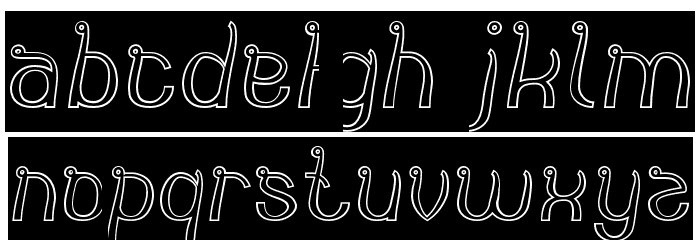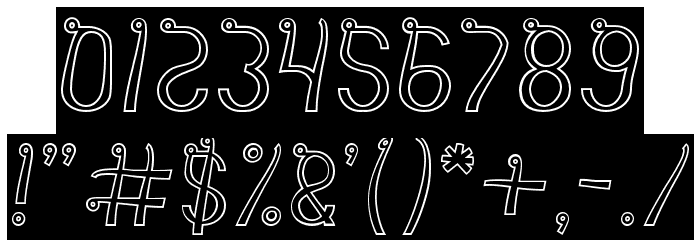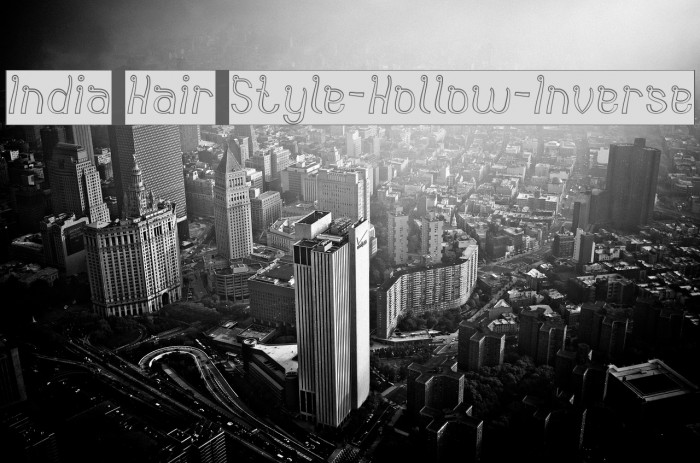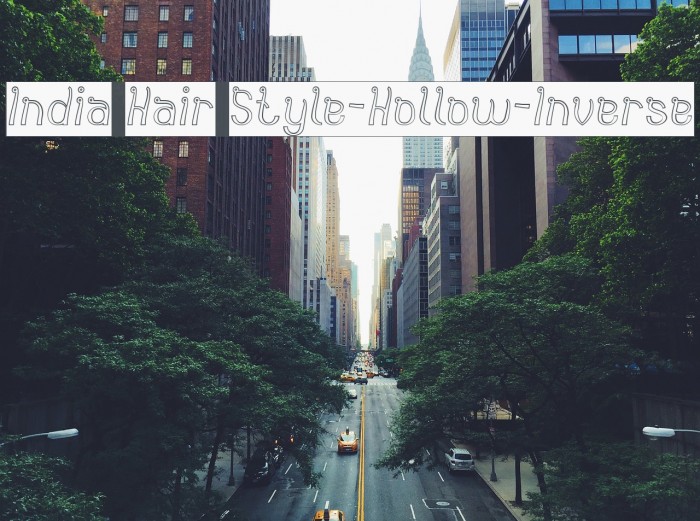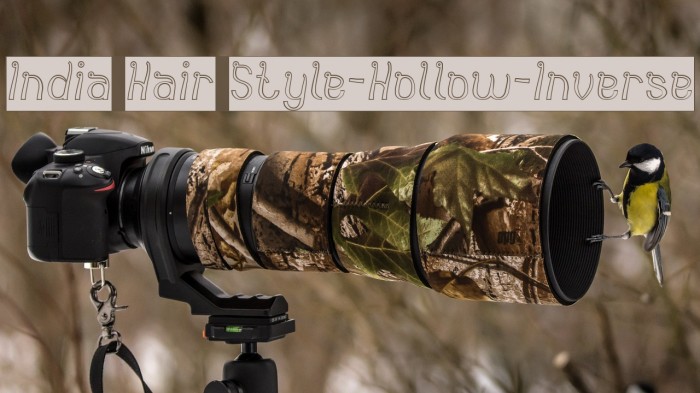
India Hair Style-Hollow-Inverse Font
This font features a unique hollow design with an artistic flair, characterized by its playful and decorative style. Each letter is outlined with a consistent stroke, creating an inverse effect that gives it a distinctive appearance. The characters have a whimsical quality, with rounded terminals and occasional loops that add to its charm. The uppercase and lowercase letters maintain a consistent style, while the numbers and special characters follow the same design principles, ensuring uniformity across the font. This font is ideal for creative projects that require a touch of elegance and individuality.
A decorative hollow font with playful loops and rounded terminals.
- Proposed Projects: Ideal for creative projects such as posters, invitations, and branding that require a unique and artistic touch.